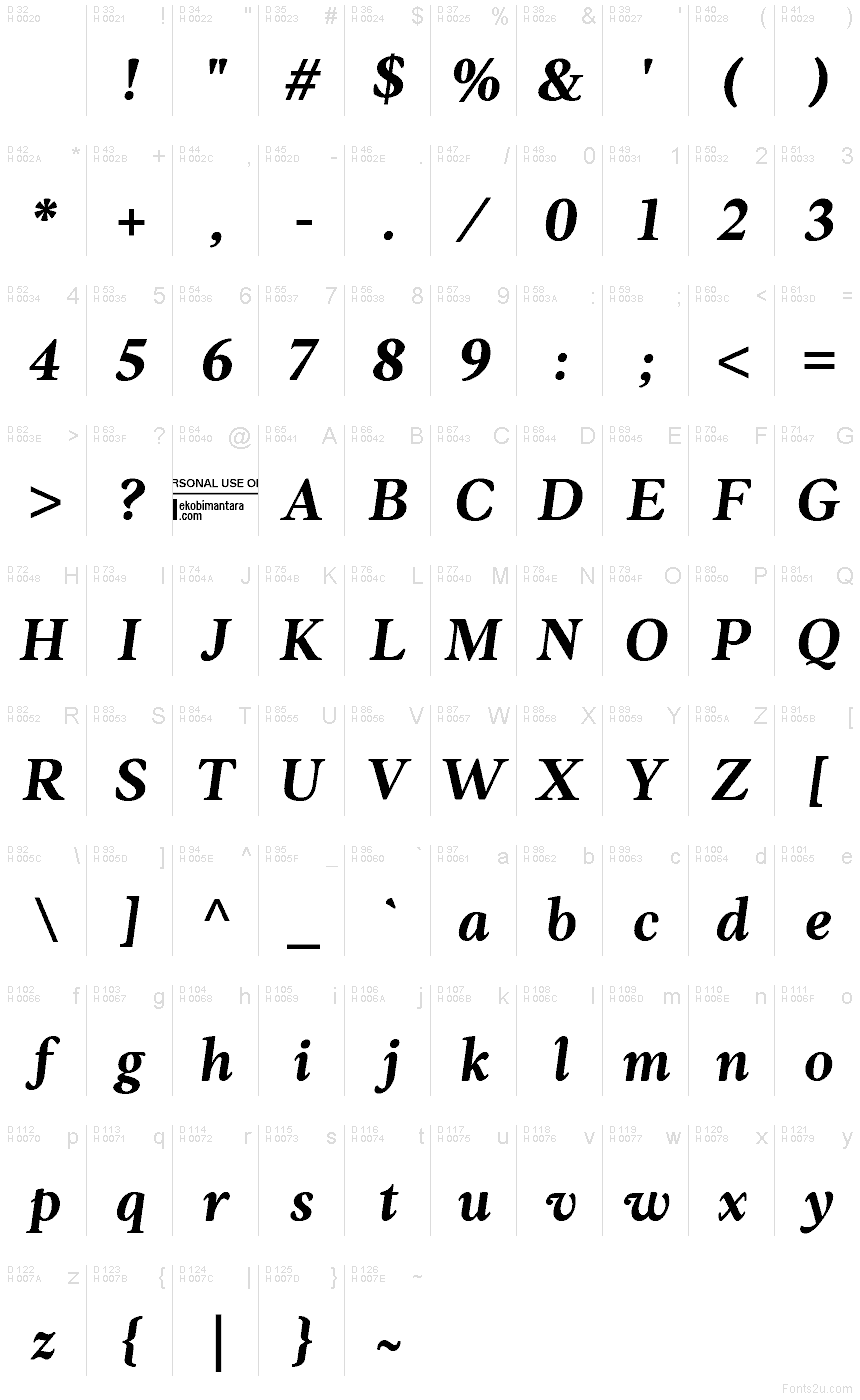
Anko Trial Bold Italic
Anko Bold Italic font by Eko Bimantara is a free bold italic serif font. For designers who need drama without losing clarity, it gets the balance right between sculptural contrast and sturdy structure. The Anko family’s bold italic slants with confident, inky curves and crisp wedge serifs, giving headlines a forward lean while keeping counters open and readable. Strokes feel taut, not bloated, so you can push size without the forms collapsing.
Using Anko Bold Italic, titles snap to attention on posters, magazine covers, boutique packaging, book jackets, logos, and editorial pull quotes. Its rhythmic tilt and sharp terminals add momentum, making short phrases feel urgent and premium. Pair this free font with Anko Regular or a clean sans for body copy; add a touch of letterspacing at large sizes to let those thick–thin transitions breathe.